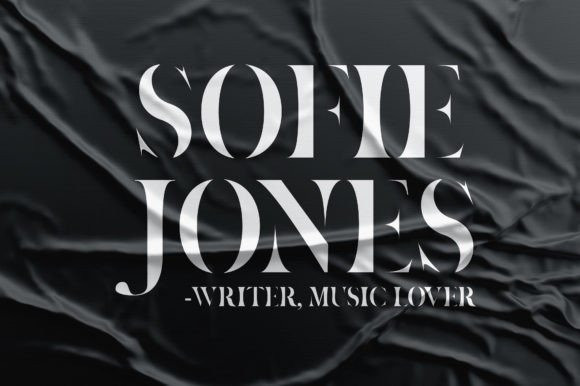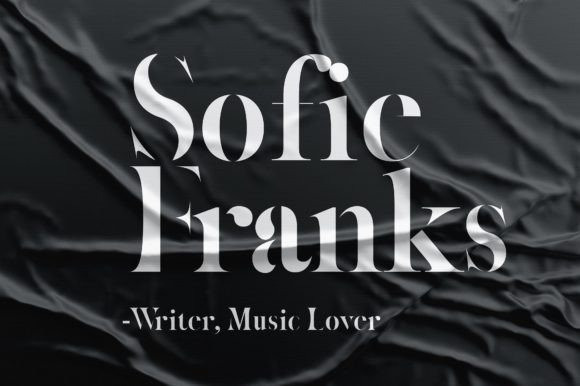
King Font
King Font is a modern, minimalist, elegant and luxurious stencil serif typeface. It perfectly suits elegant design projects such as logos, packaging design, cosmetics design, perfume, fashion, jewels, posters, luxurious goods, and many more. Use it in your creative idea, and you will notice how it saves you a lot of time!